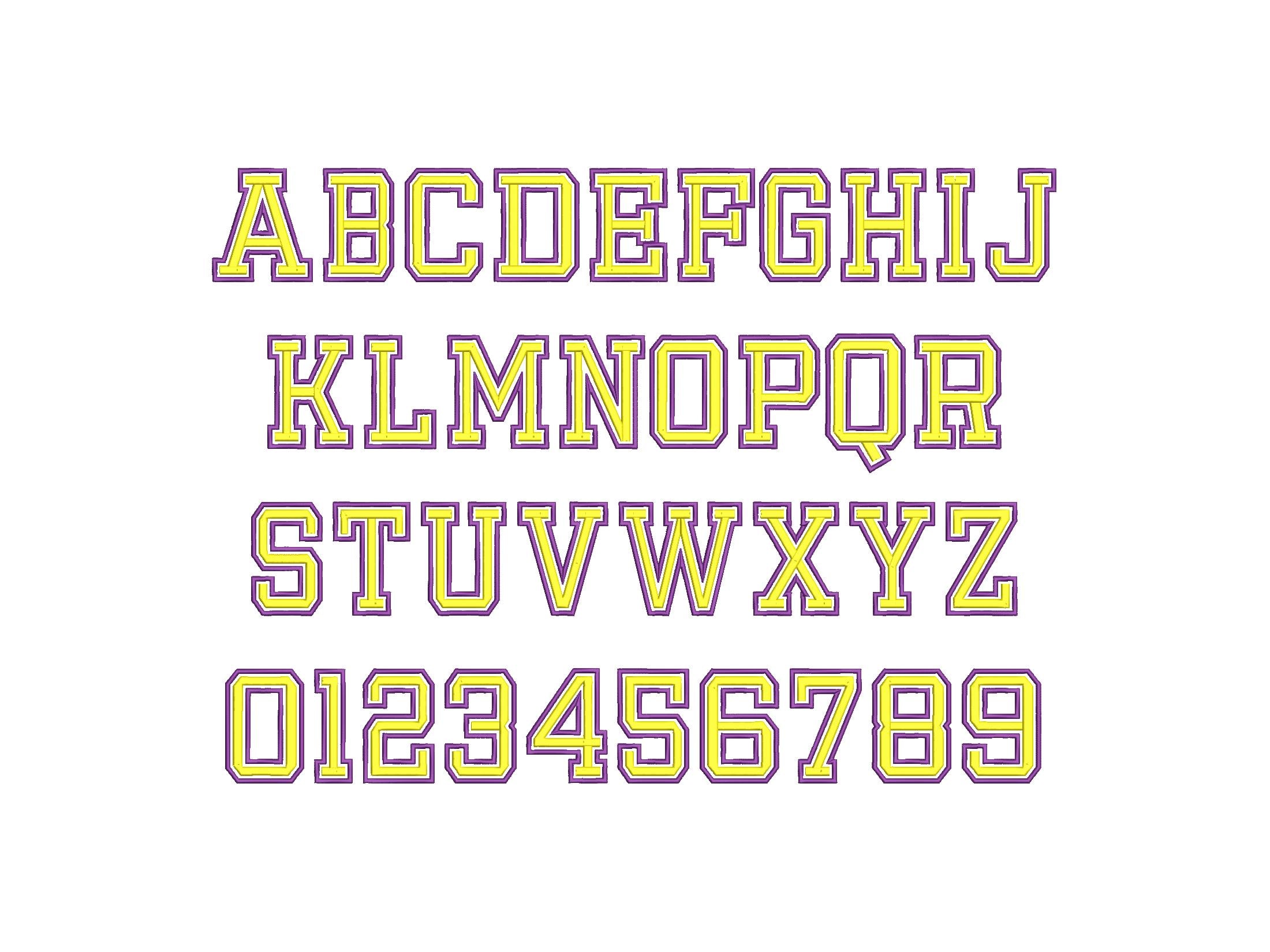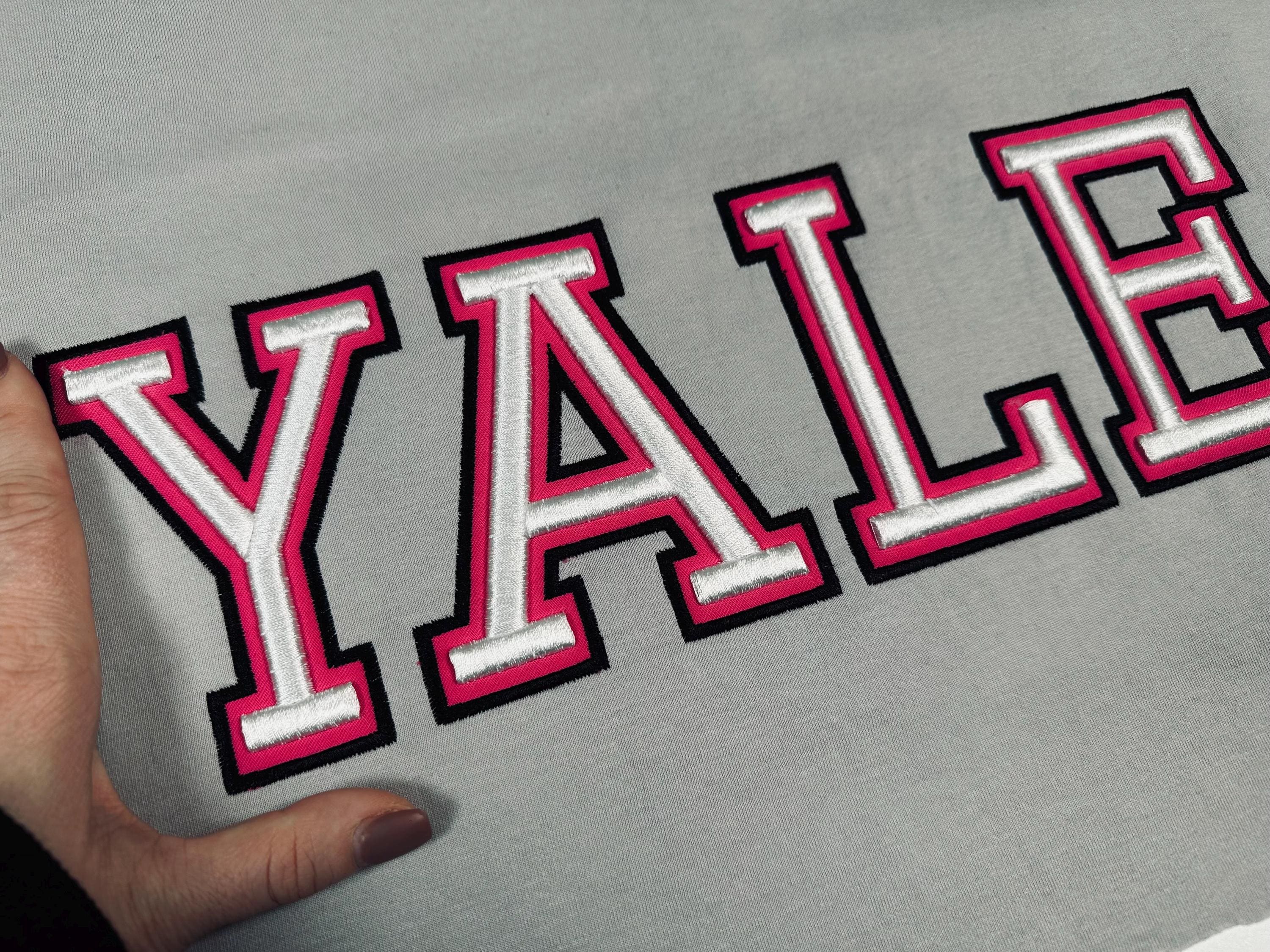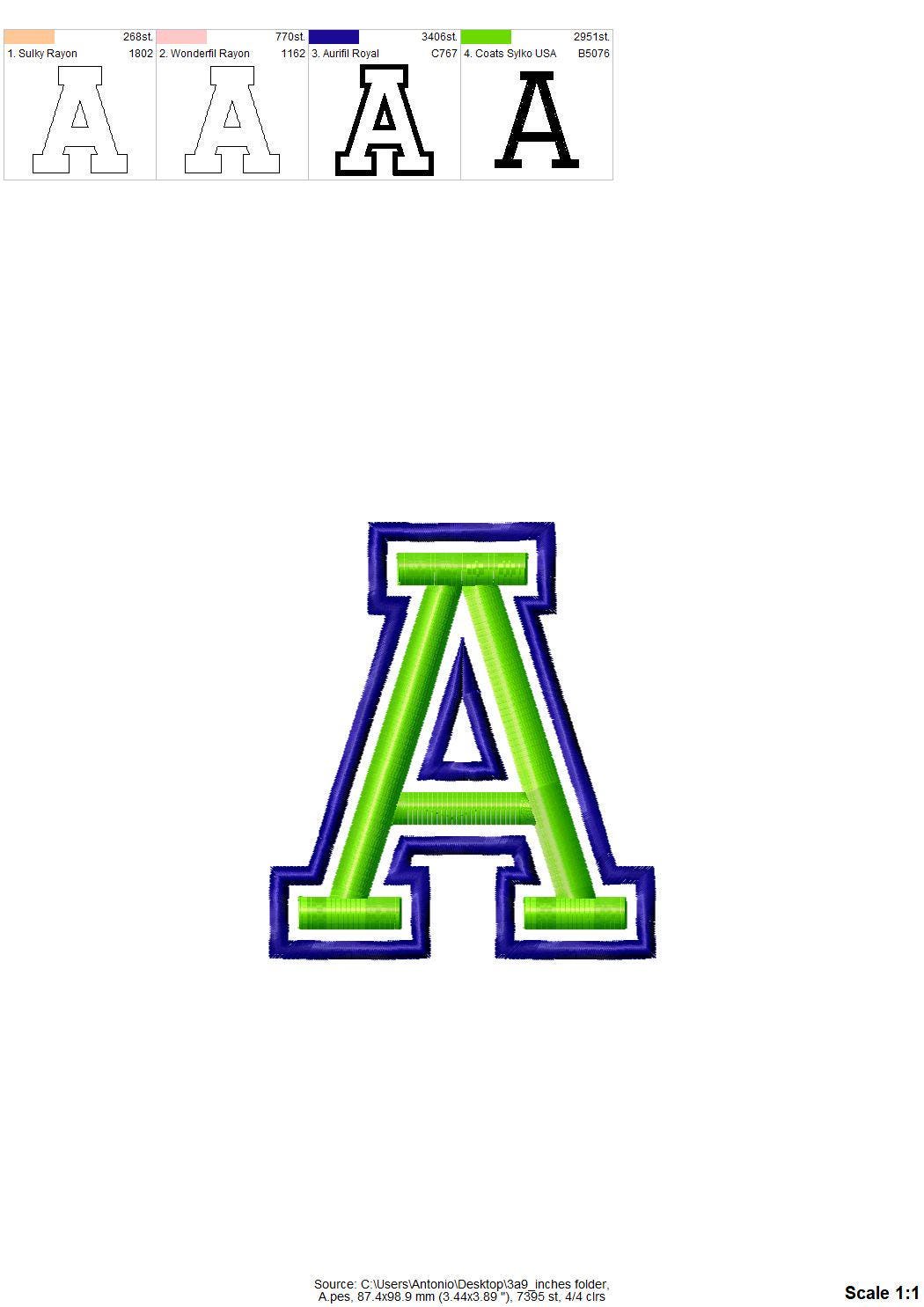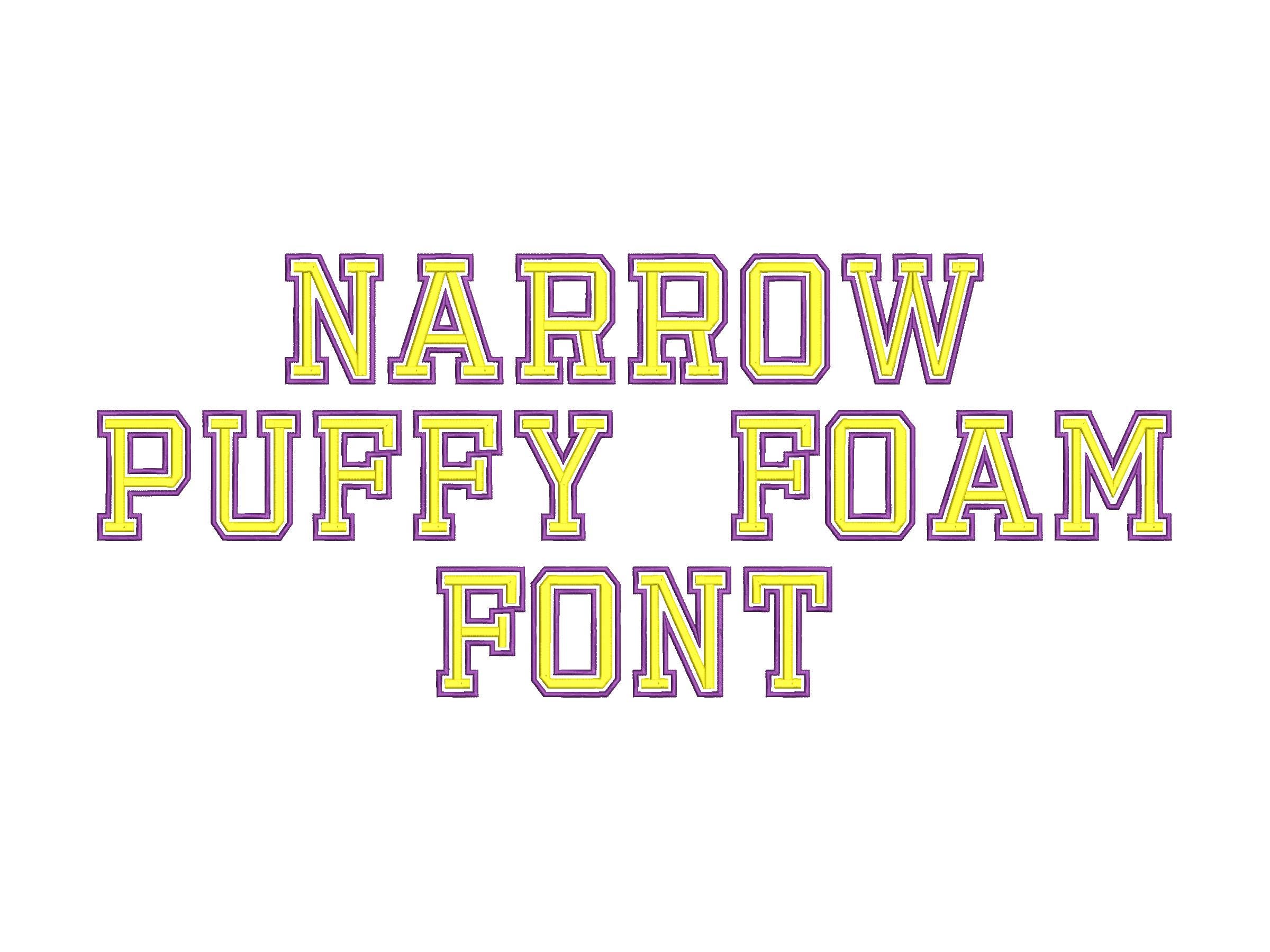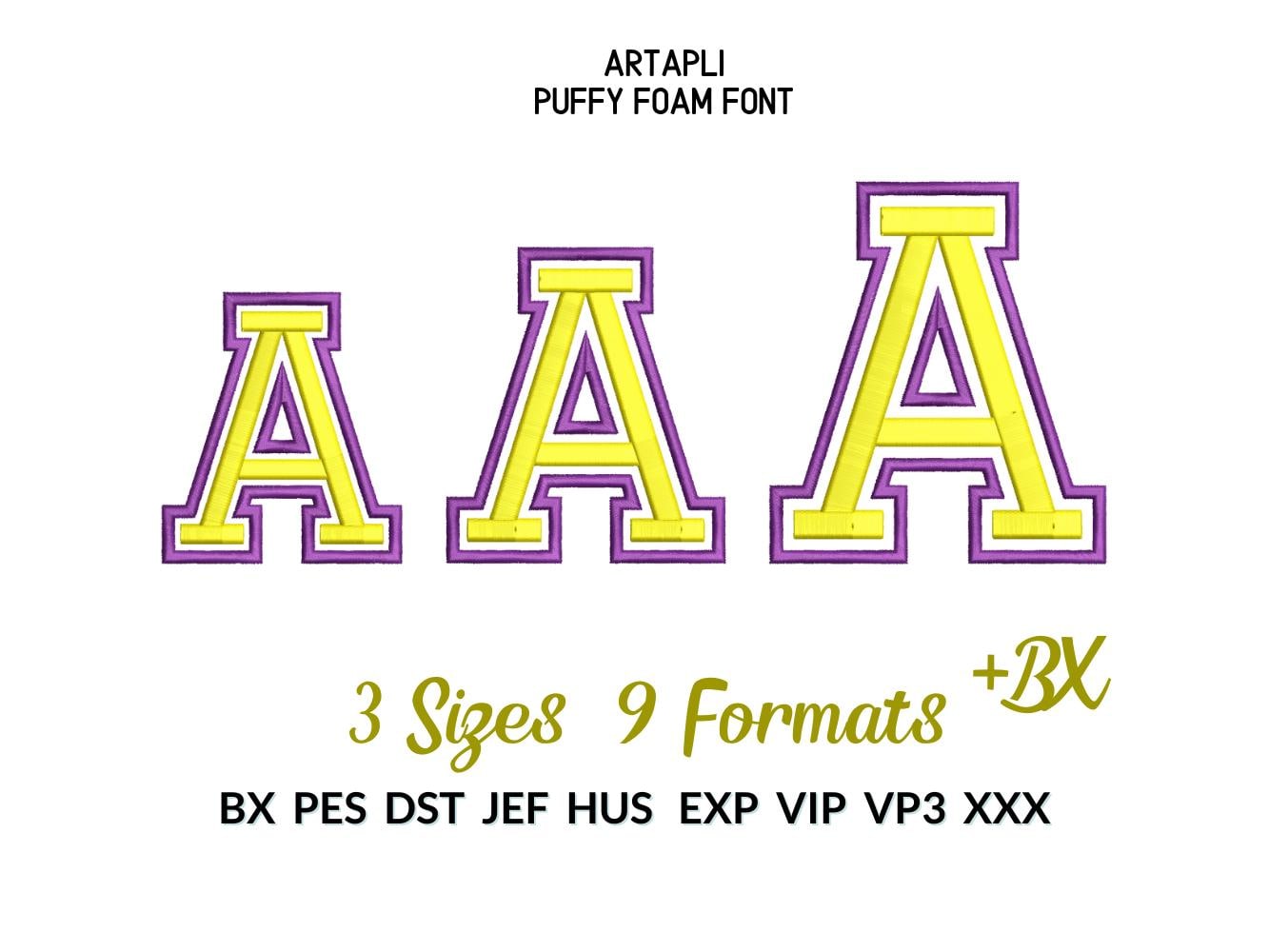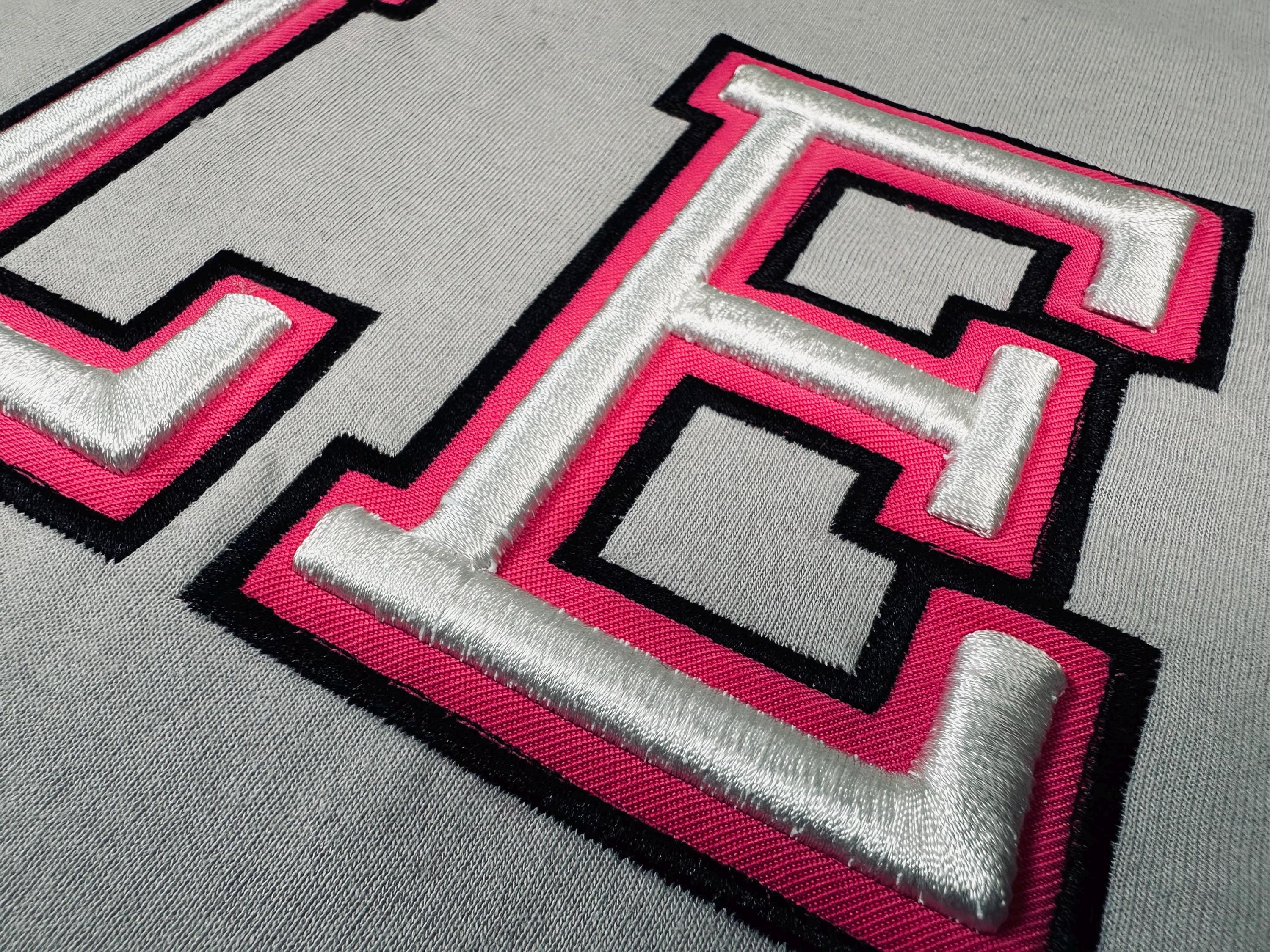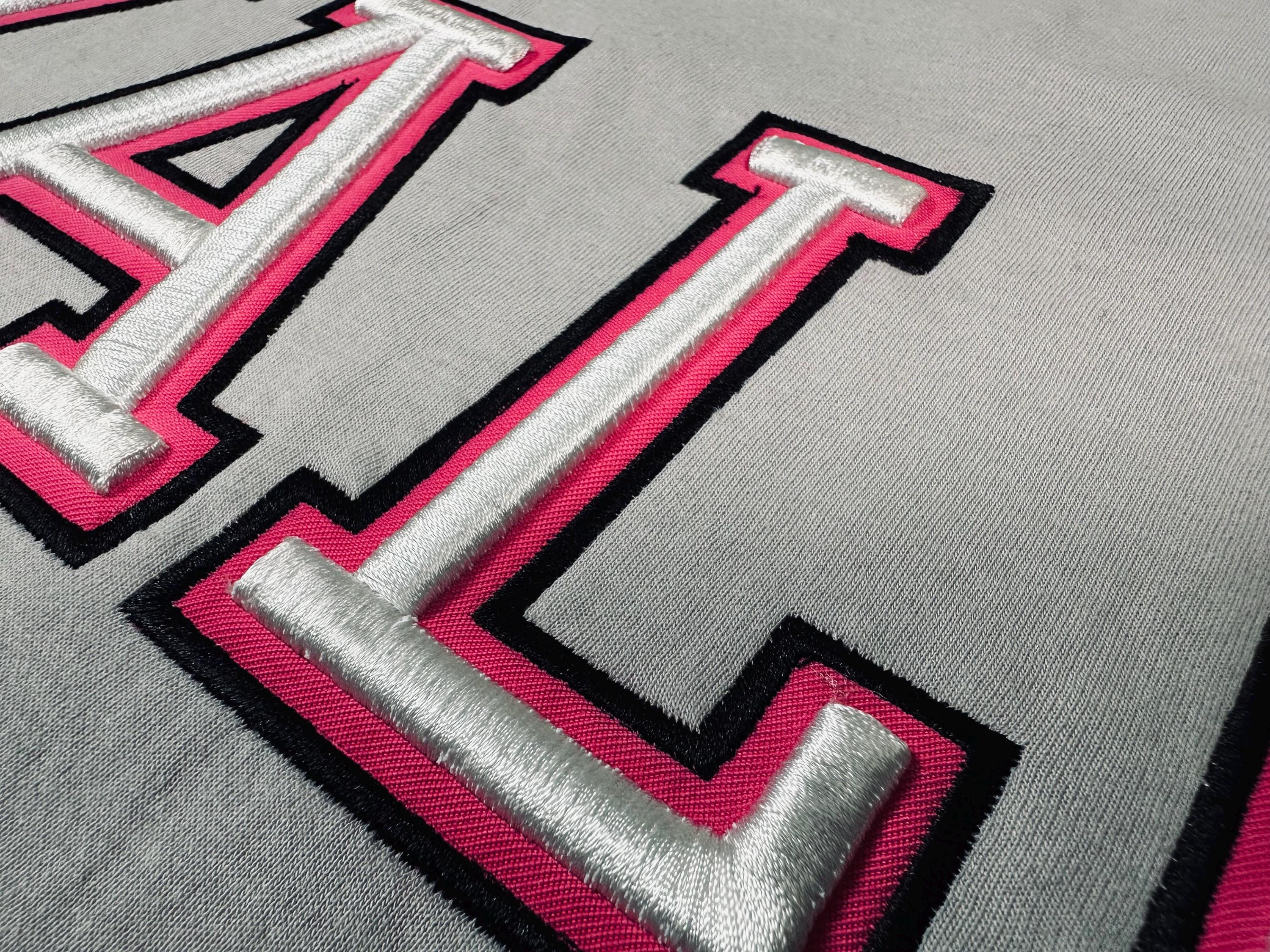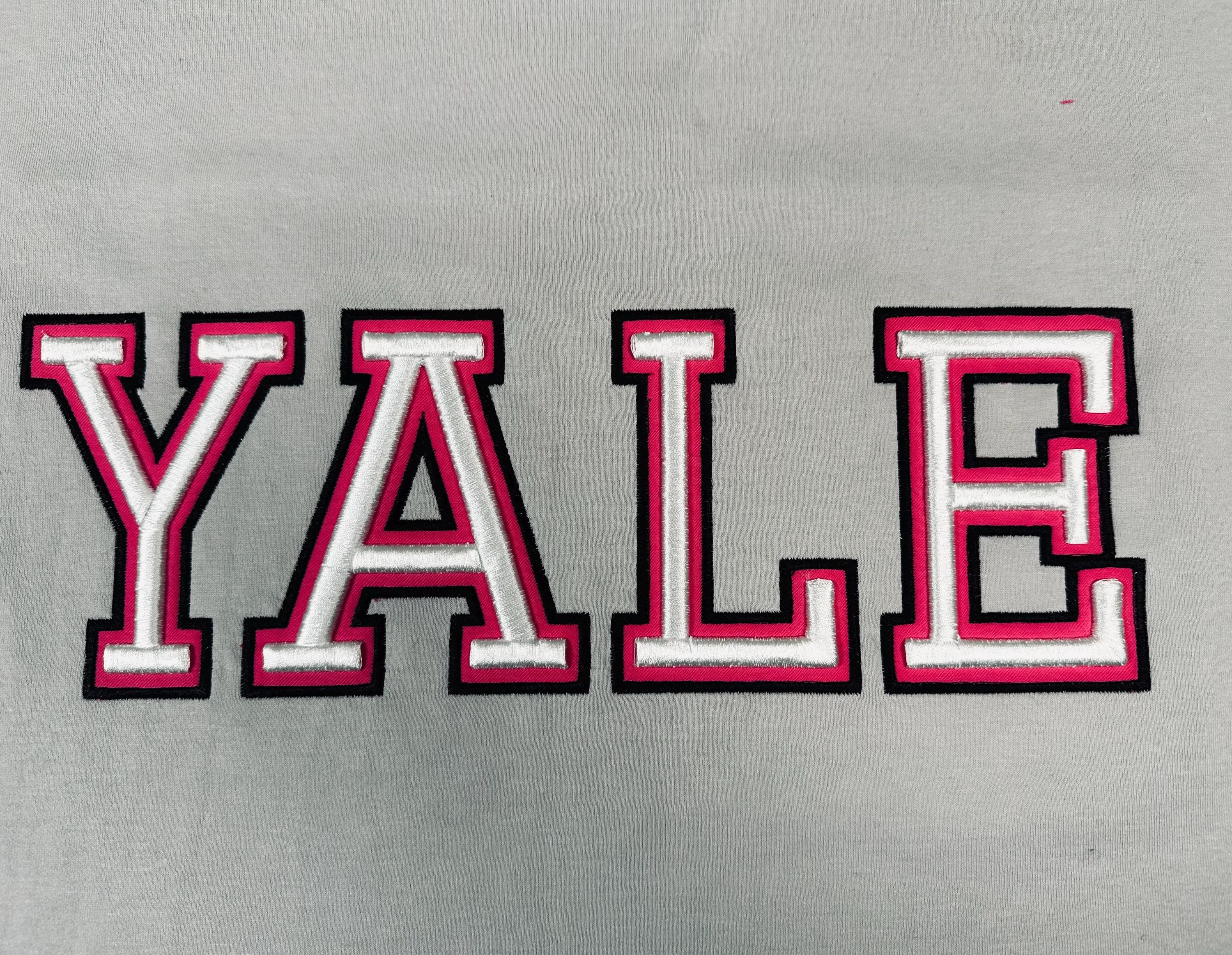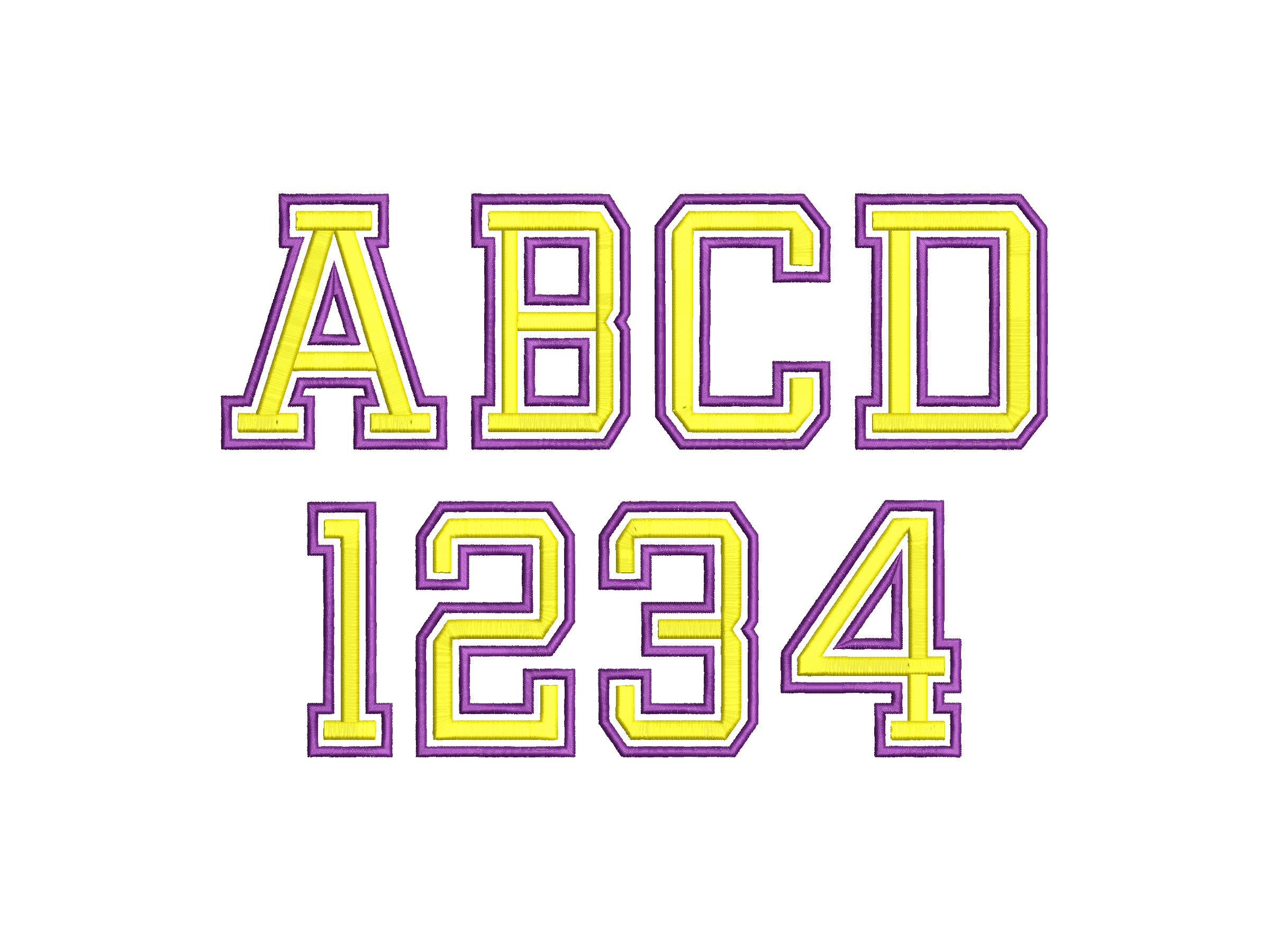
Puff Narrow FONT Sport Varsity alphabet Applique machine embroidery designs 3D raised Puffy Foam monogram Sports Block Font 3.3 up to 4.7 inches
Whole alphabet A-Z uppercase, and numbers 0-9.
Applique design